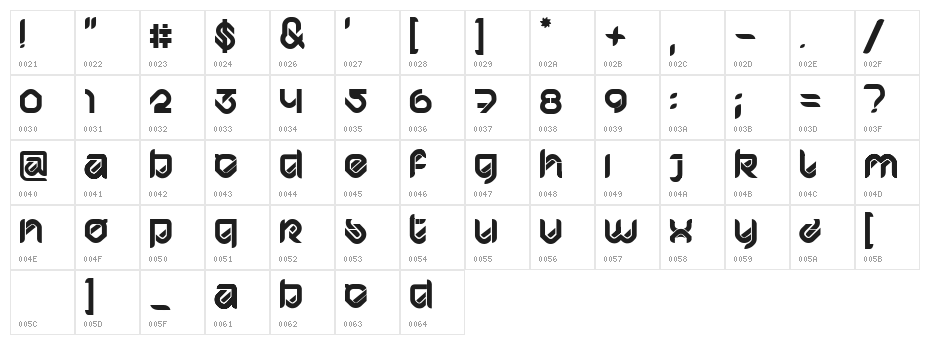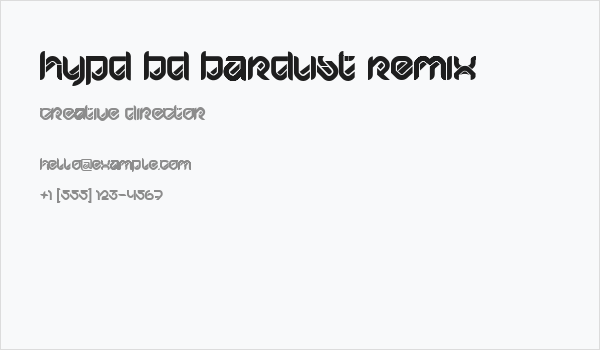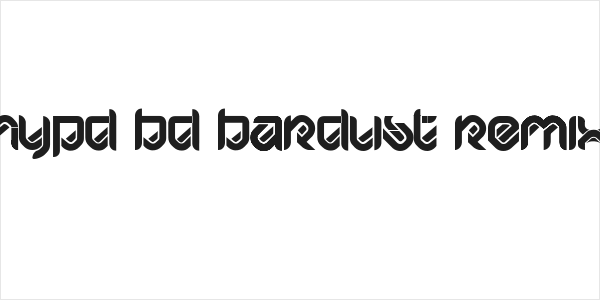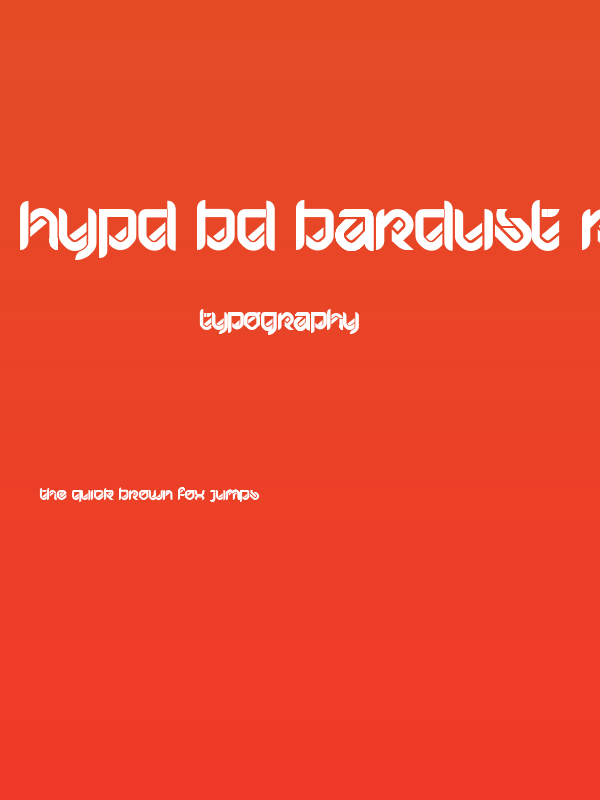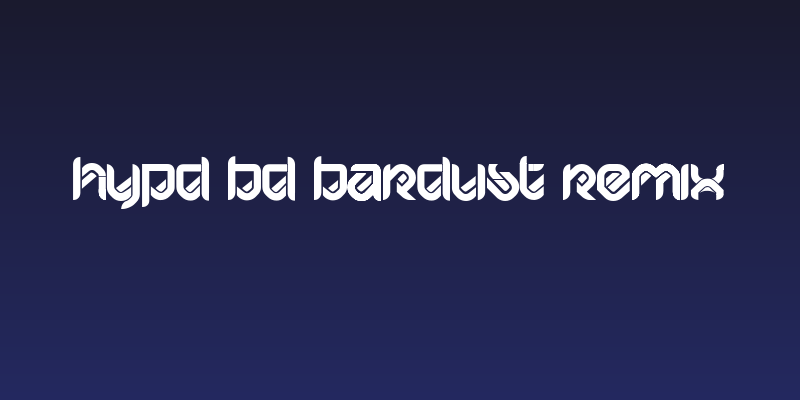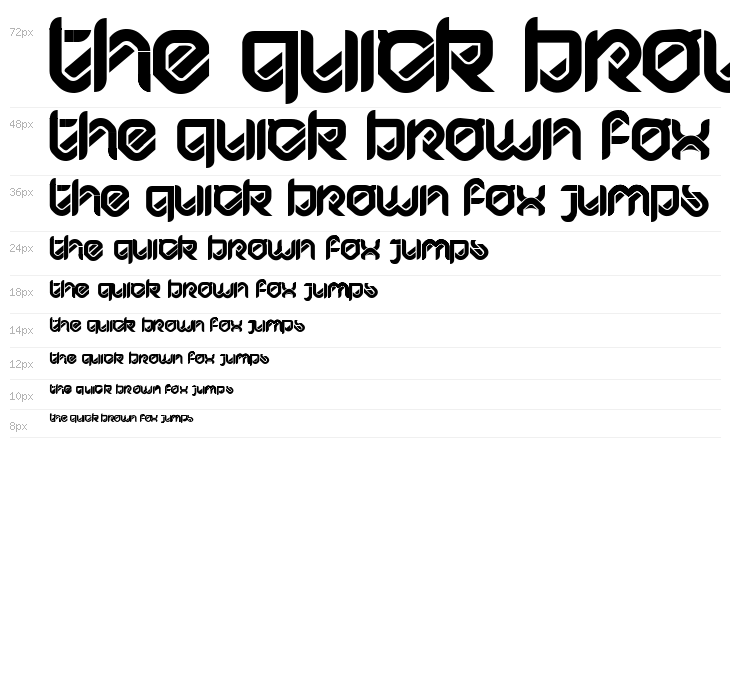
HYPD BD Bardust Remix Font
HYPD BD Bardust Remix Description
This font features a bold and futuristic design with geometric shapes and sharp angles. The characters are crafted with a unique blend of curves and straight lines, creating a dynamic and modern appearance. The uppercase and lowercase letters maintain a consistent style, while the numbers and special characters complement the overall aesthetic. The font's distinct style makes it suitable for eye-catching designs and creative projects.
| Proposed Projects | Ideal for branding, posters, album covers, and digital media projects that require a modern and edgy look. |